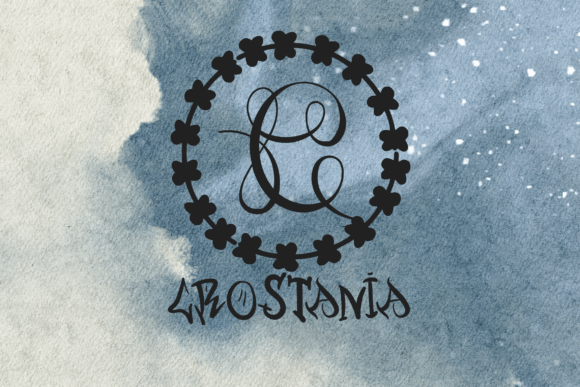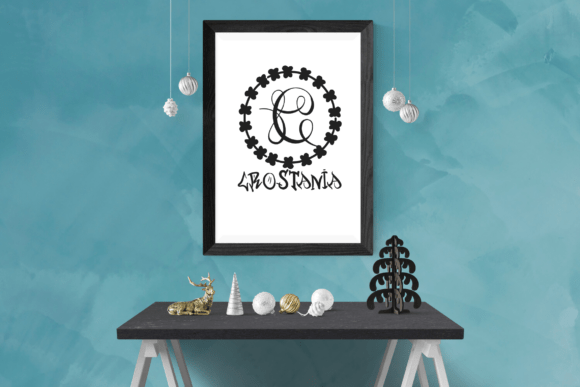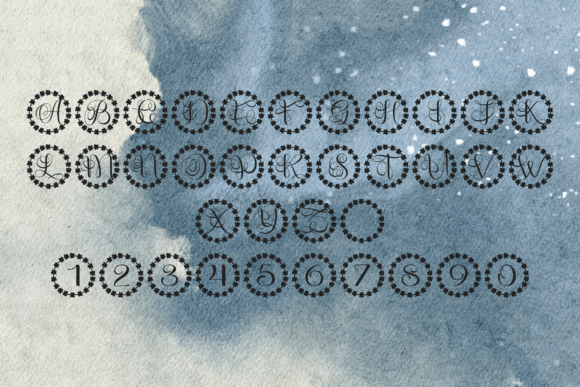
Olivenza Monogram Font – Free Download
Introduction to Olivenza Monogram Font
Meet Olivenza, the Monogram Font Olivenza Monogram turns simple initials into refined botanical emblems with a calm, upscale feel.
| 👤 Author | Sharon ( DmStudio ) |
The strokes are smooth and balanced, so letters stay clear at any size Because counters remain open, tiny tags print crisp while large signage looks polished and gift-ready.
Key Features of Olivenza Monogram Font
Why Choose Olivenza Monogram Font?
Olivenza Monogram Font offers exceptional quality and versatility, making it a valuable addition to your design toolkit. Whether you’re creating for personal projects or commercial use, Olivenza Monogram Font delivers professional results.